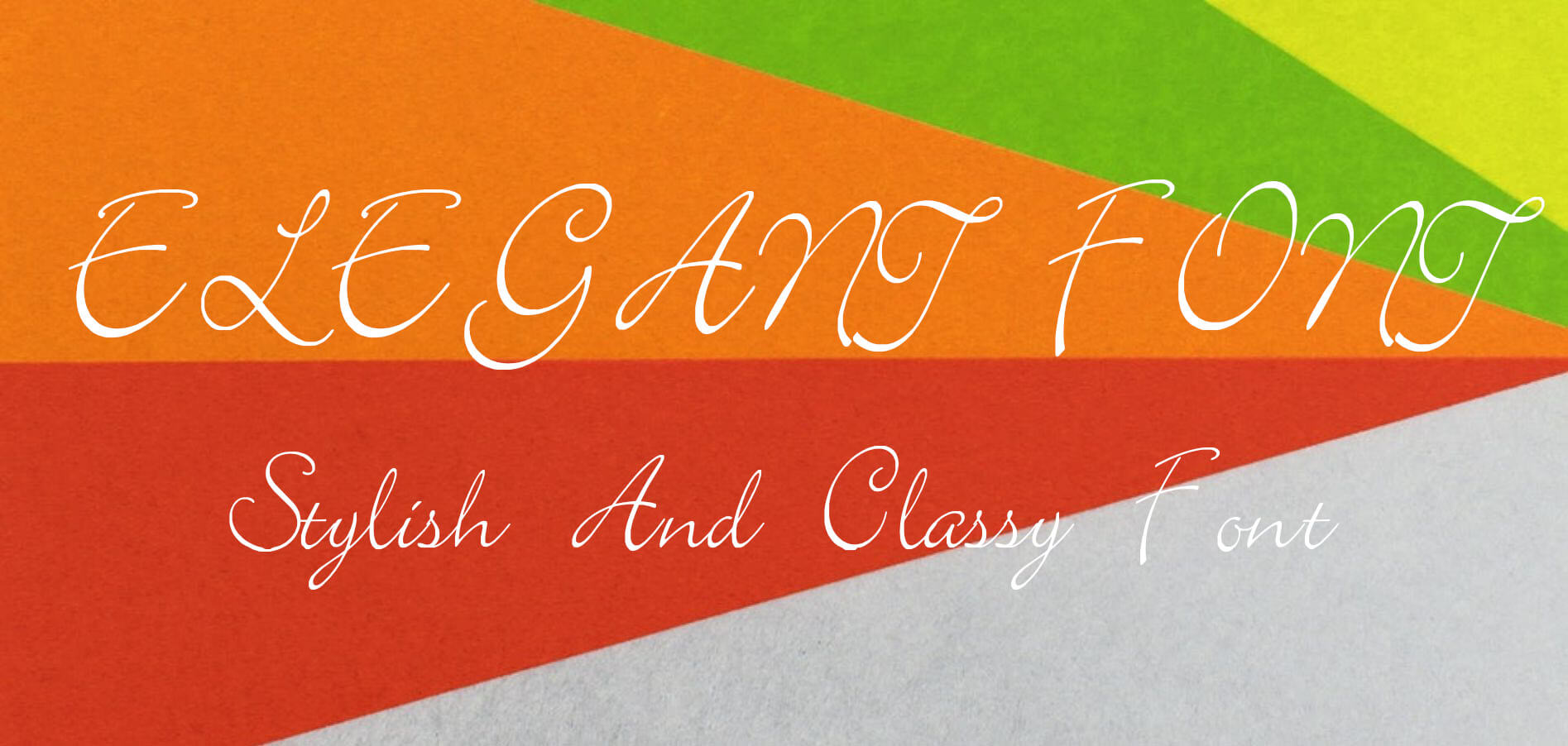
Elegant was designed by FallenGraphic Studio. This amazing script font is a highly used typeface and many designers and Corporations adopted this font for their regular designs.
This font comprises more than 200 unique glyphs and 217 amazing stylish characters, including uppercase, lowercase, numbers, punctuations, symbols, icons, and many special characters. This has also extensive language support including Latin, French, and Cyclic.
Elegant Font Family
NameElegant Font
DesignerFallenGraphic Studio
StyleScript